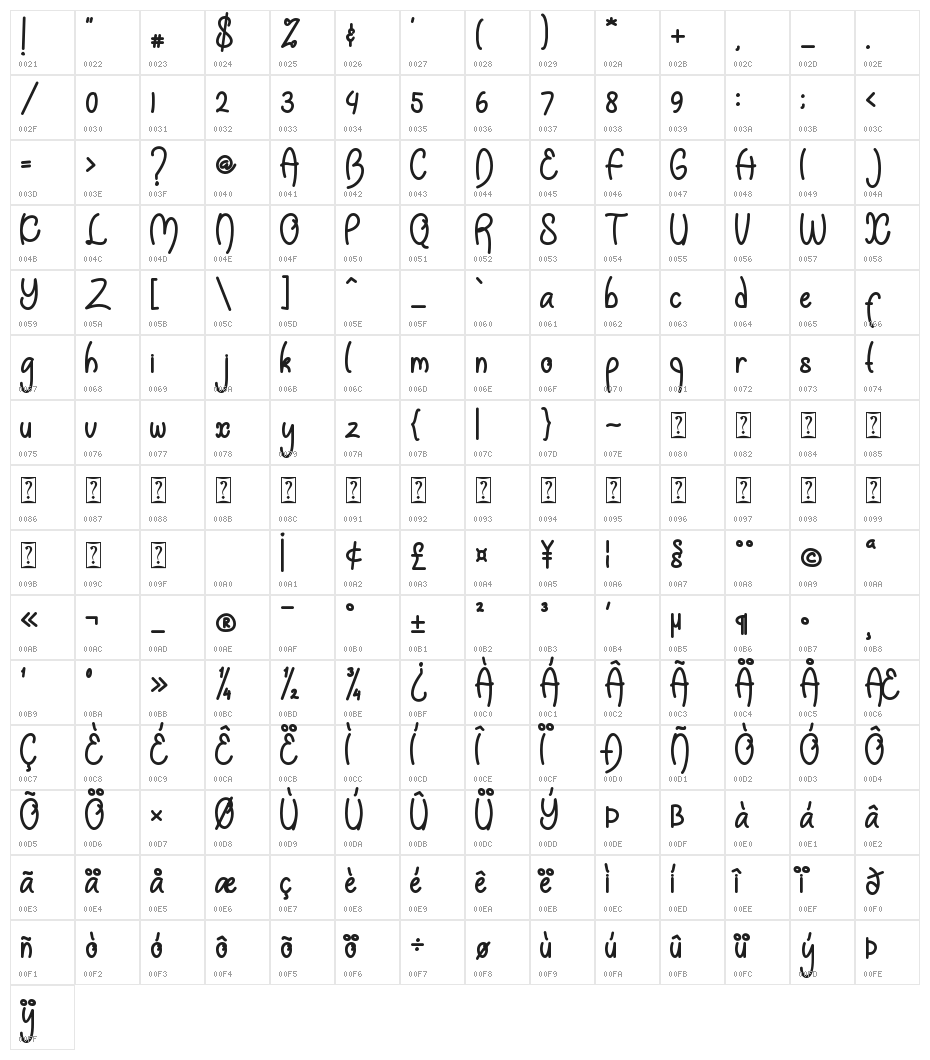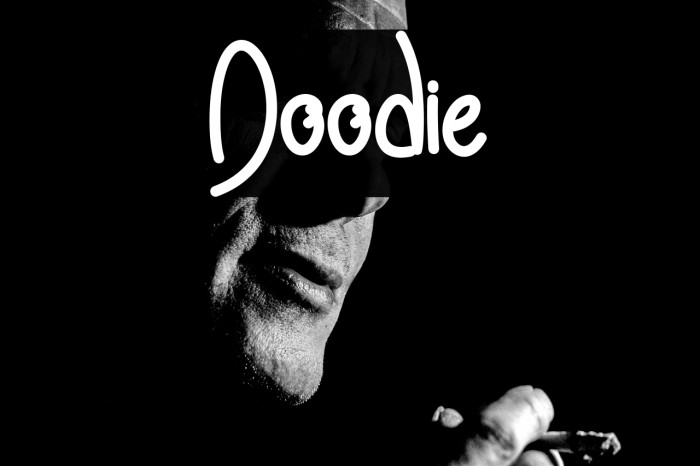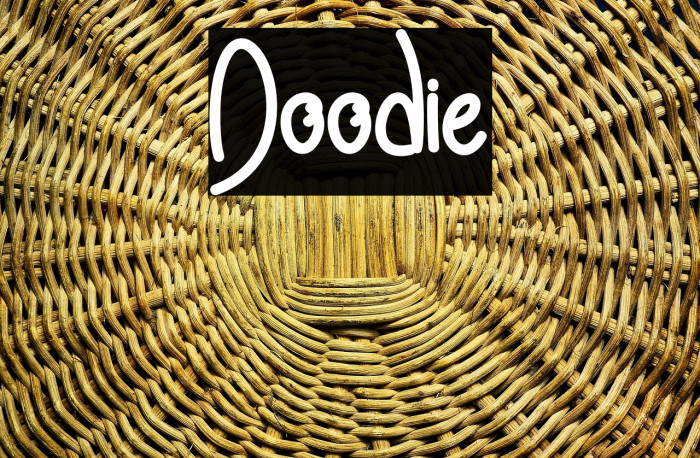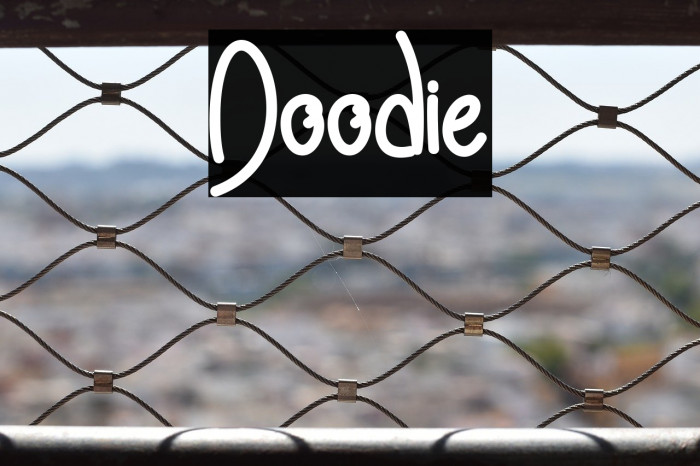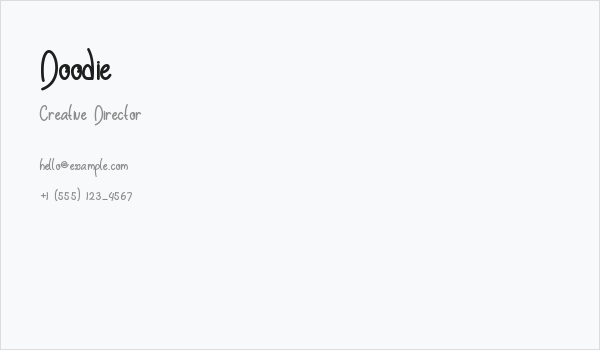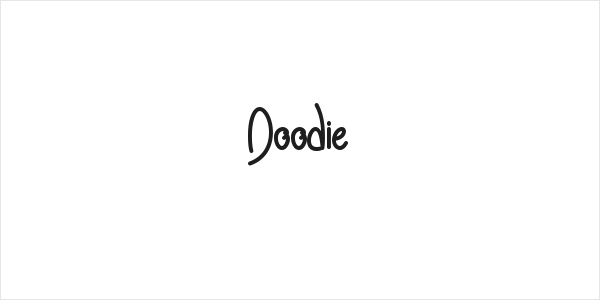
Doodie Font
Doodie Description
This playful and whimsical font features a handwritten style with smooth, rounded edges and a casual flow. The letters are slightly slanted, giving a dynamic and lively appearance. The uppercase and lowercase characters maintain a consistent style, with a friendly and approachable feel. The numbers and special characters are designed to match the overall aesthetic, ensuring a cohesive look across all text. This font is perfect for projects that require a personal touch or a fun, informal vibe.
Overall StylePlayful
Use CaseLogos, Headlines, Informal text
Proposed ProjectsIdeal for greeting cards, children's books, playful branding, and social media graphics.